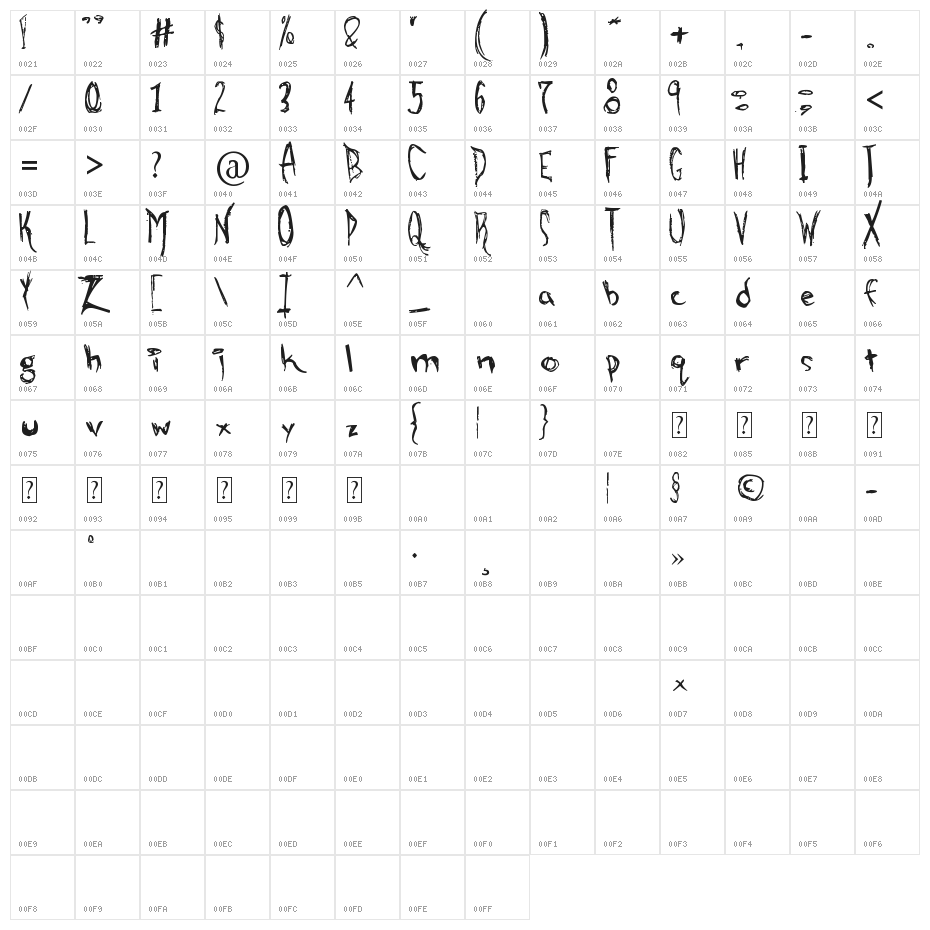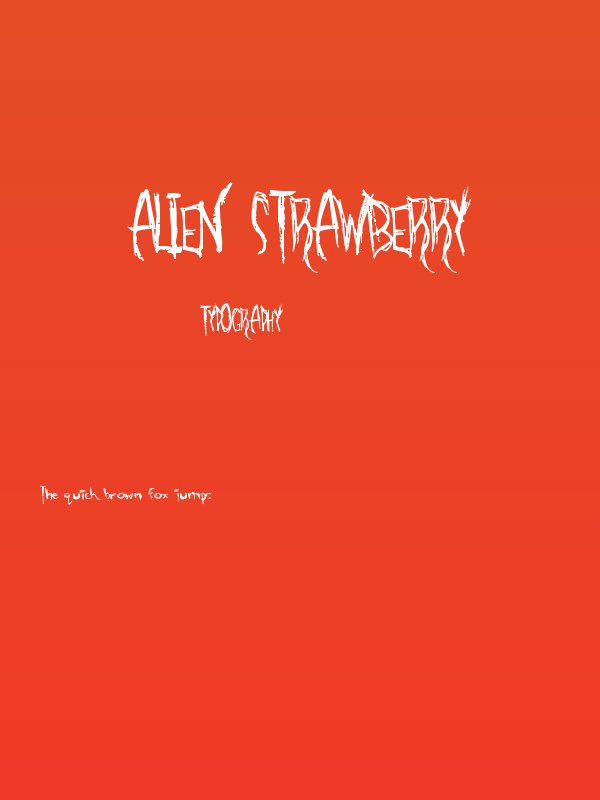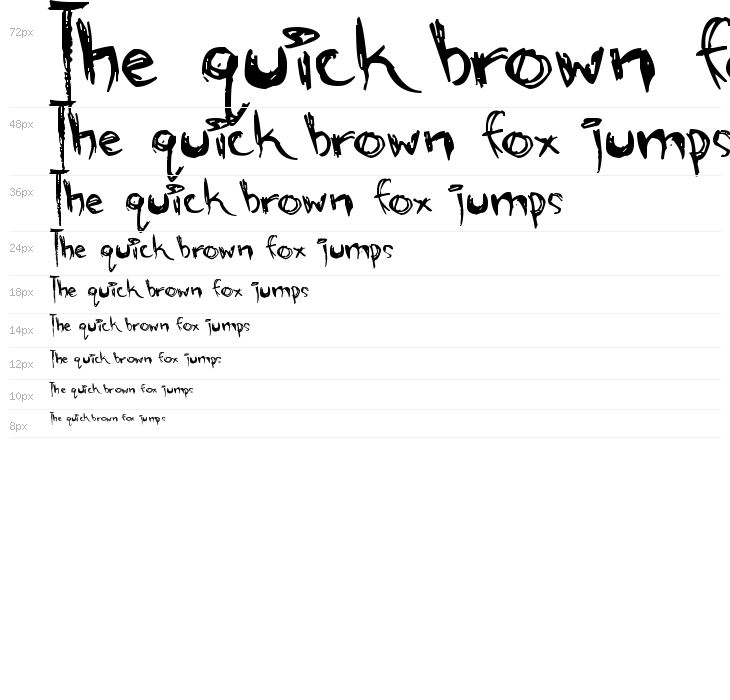
alien strawberry Font
alien strawberry Description
This font features a highly expressive and chaotic design, characterized by its irregular and jagged letterforms. The strokes are uneven and vary in thickness, giving it a raw, hand-drawn appearance. The uppercase letters are tall and narrow, while the lowercase letters maintain a more consistent height, adding to the font's dynamic nature. Numbers and special characters follow the same erratic style, making the font suitable for projects that require a bold and unconventional look. Its unique style is reminiscent of graffiti or street art, making it stand out in any design.
| Proposed Projects | Ideal for album covers, posters, street art designs, and edgy branding projects. |